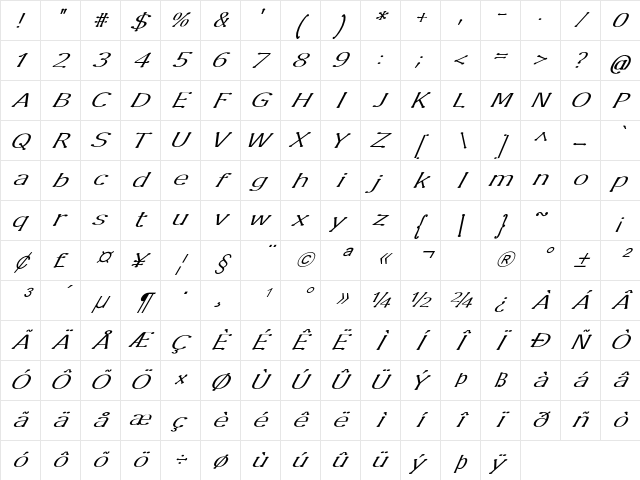
Enspar Bold Italic
Enspar Family
Enspar Bold Italic
Design Context for Enspar
Enspar is a composed and adaptable typeface that performs quietly and consistently across a wide range of design contexts. The slanted form adds forward momentum and visual energy. Its bold stroke weight gives it real presence on the page.
Pro Tip: Use Enspar for emphasis, pull quotes, and subheadings where its slanted energy can add rhythm to the layout.